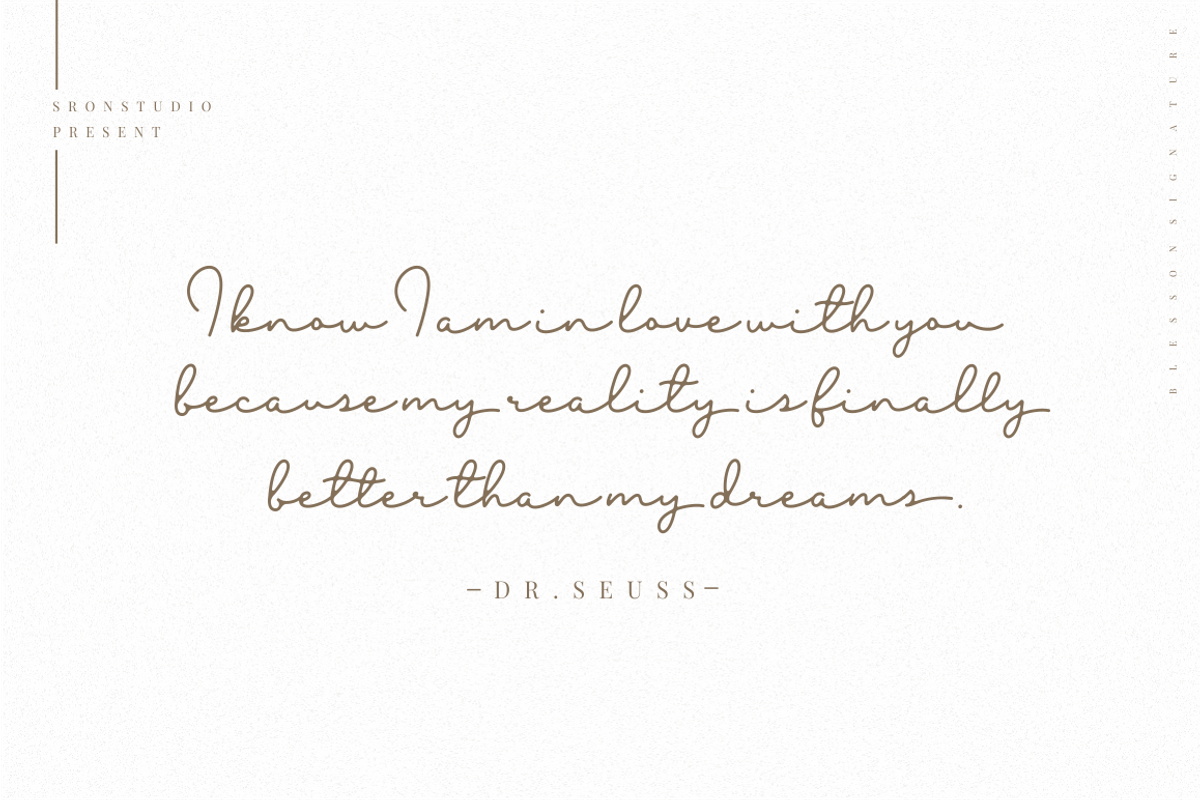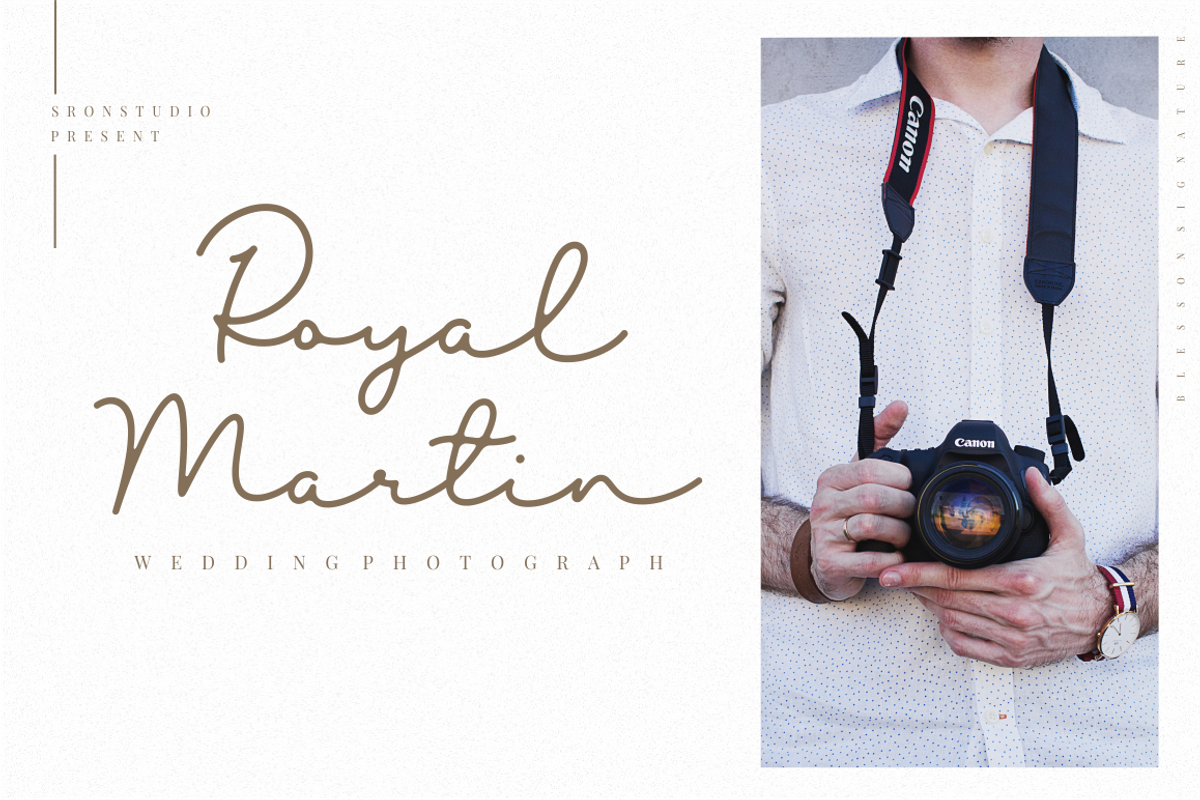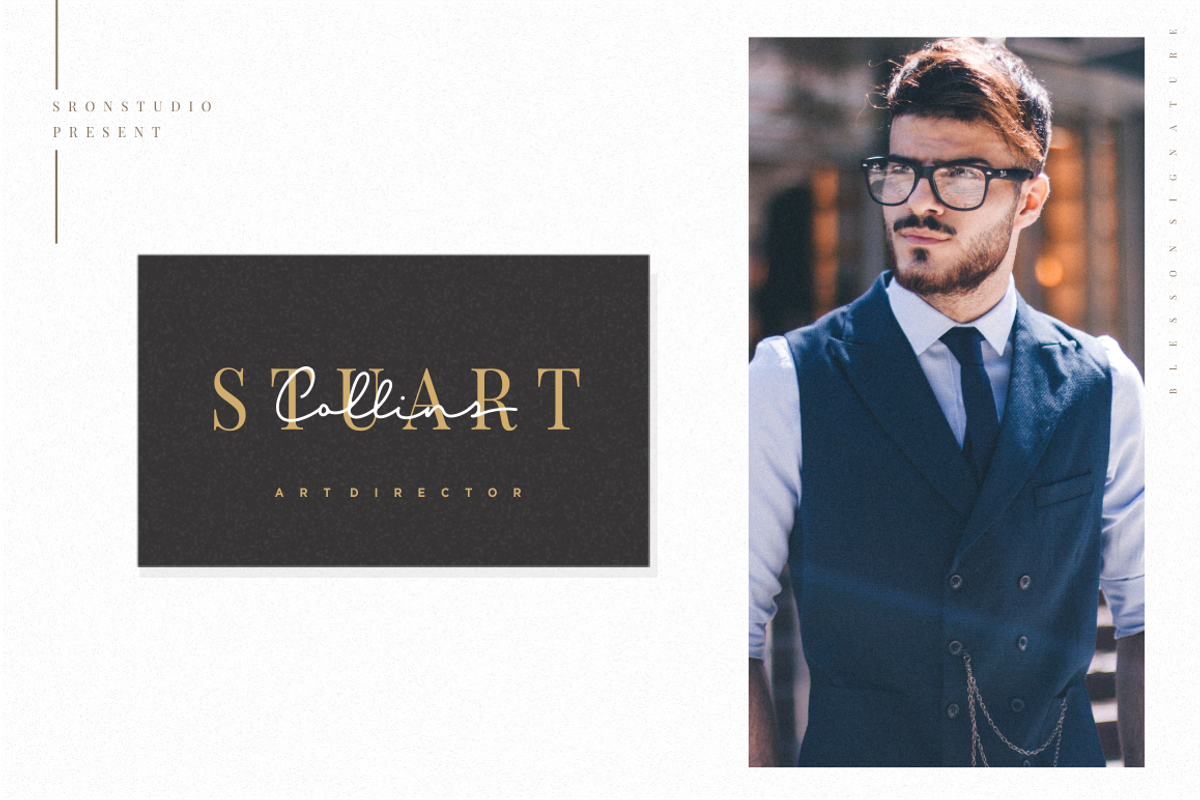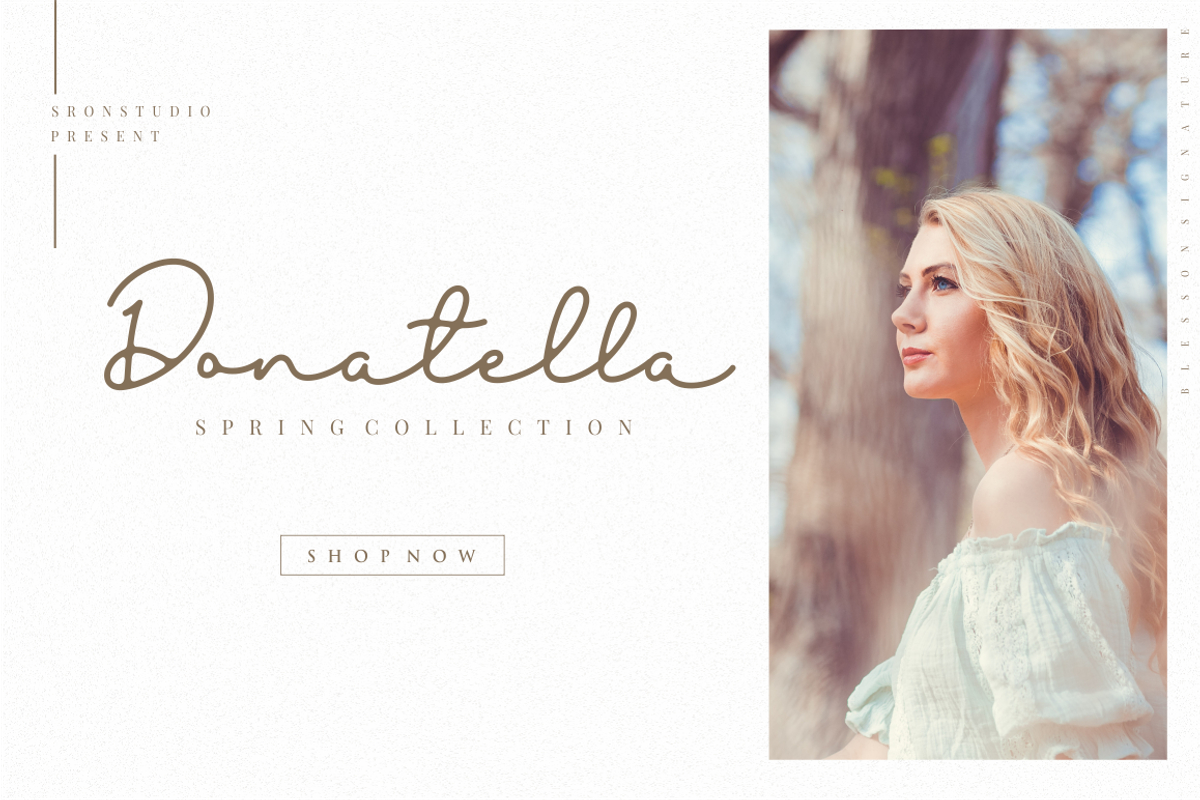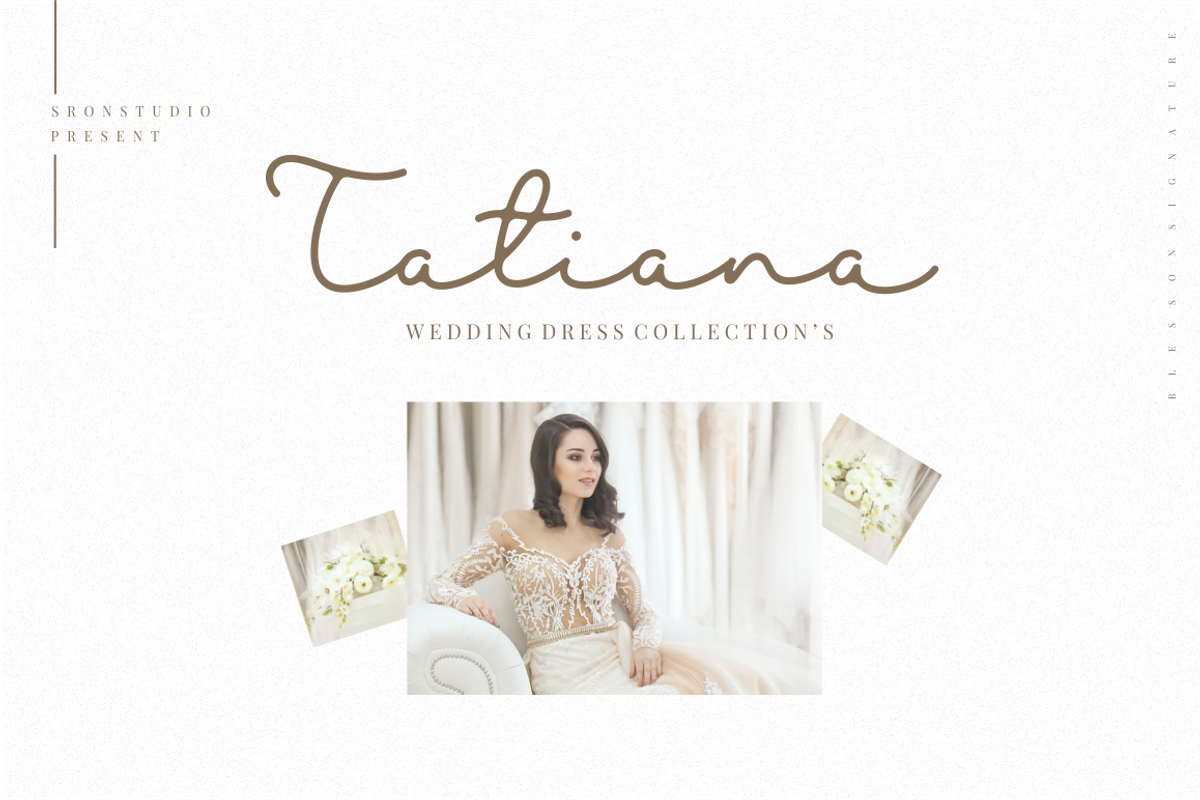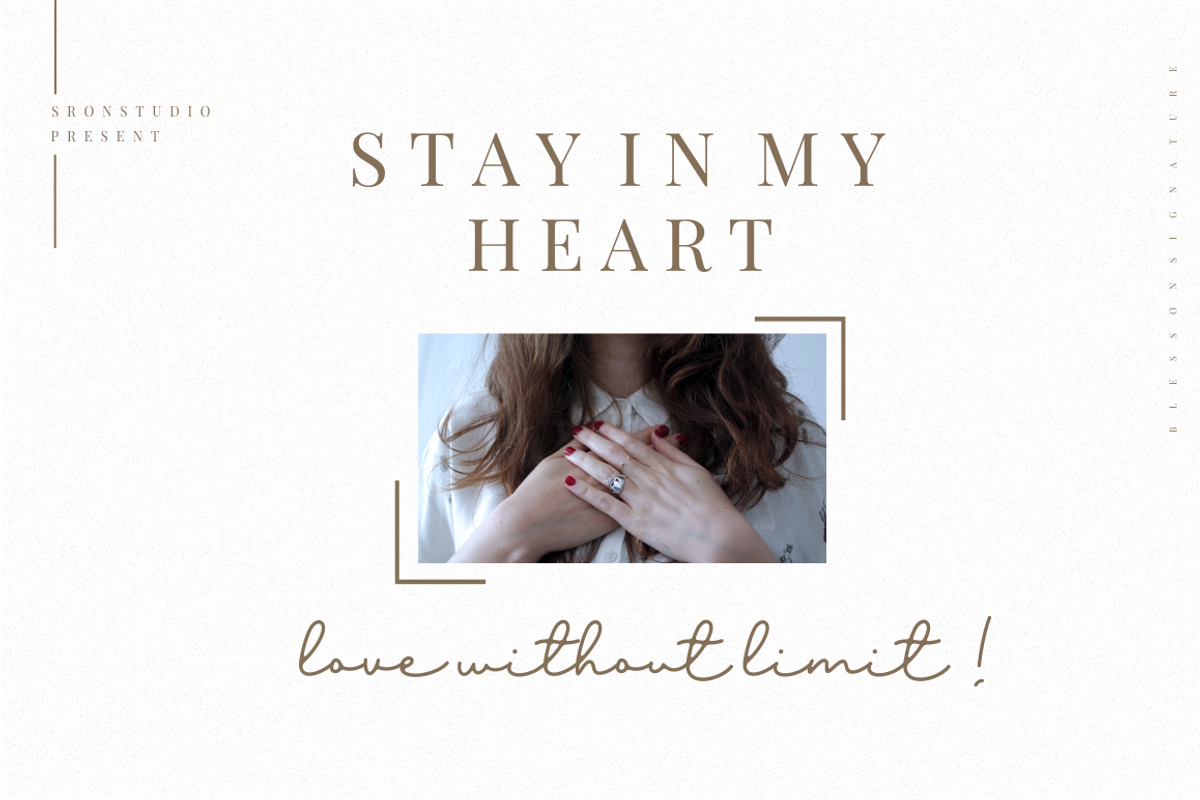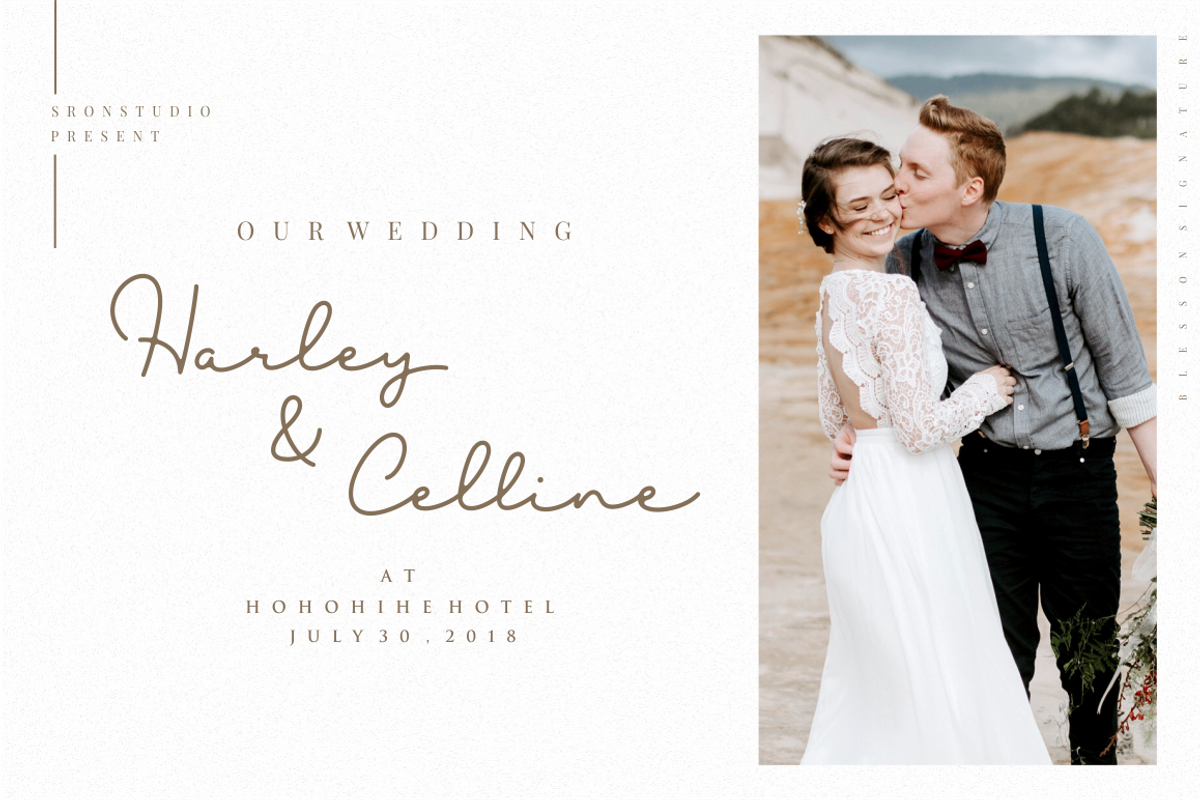
Blesson Signature Font
Introducing Blesson – a new modern signature with a fine stroke and elegant lines make this font perfect for your personal branding and any awesome project, such as : logos, invitations, stationery, wedding designs, social media posts, advertisements, product packaging, product designs, labels, photography, watermarks, special events and much more !
Why Blesson Signature Font is worth a look
Blesson Signature Font by Sronstudio fits naturally into Branding, posters, packaging, typography.